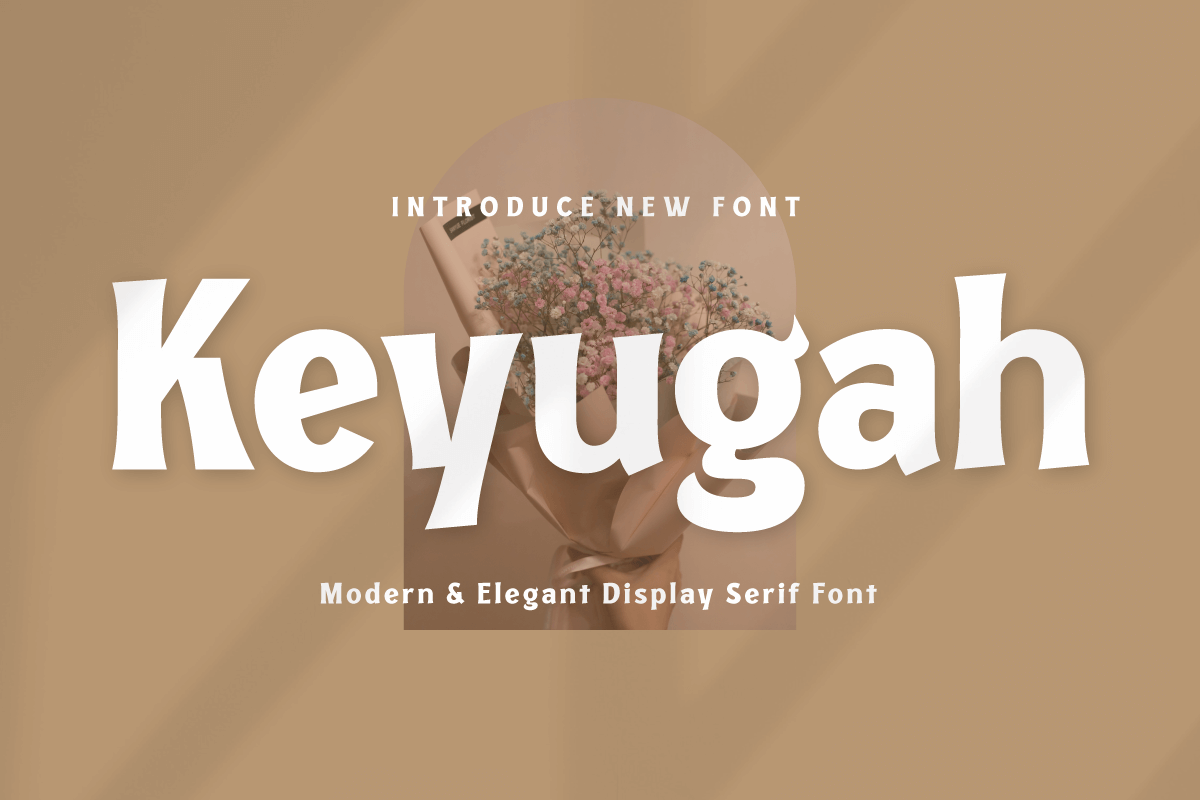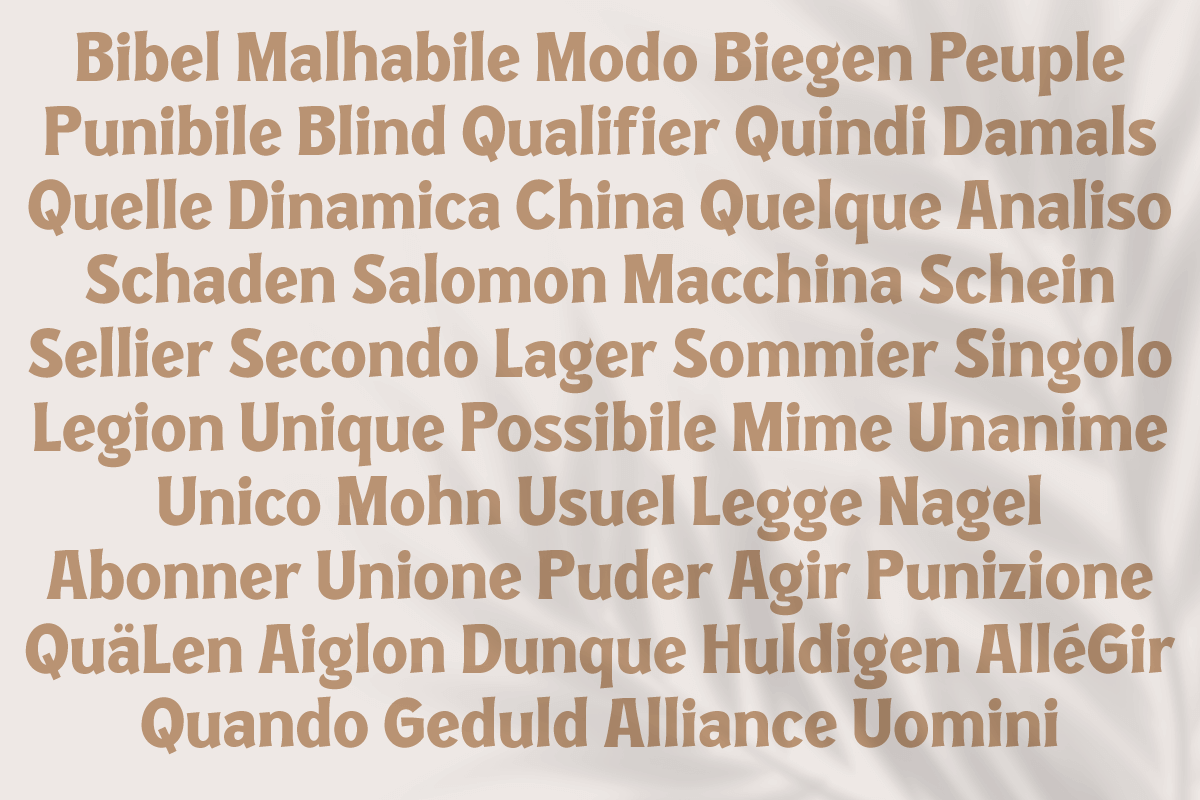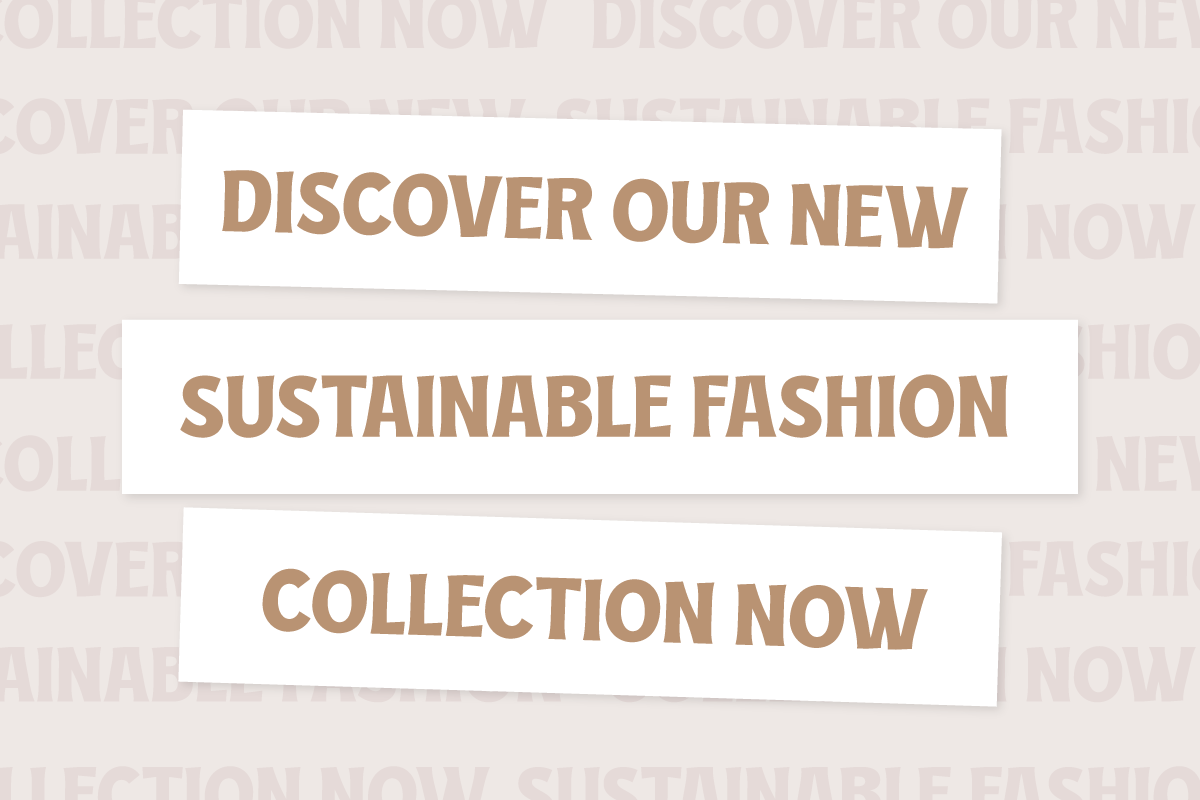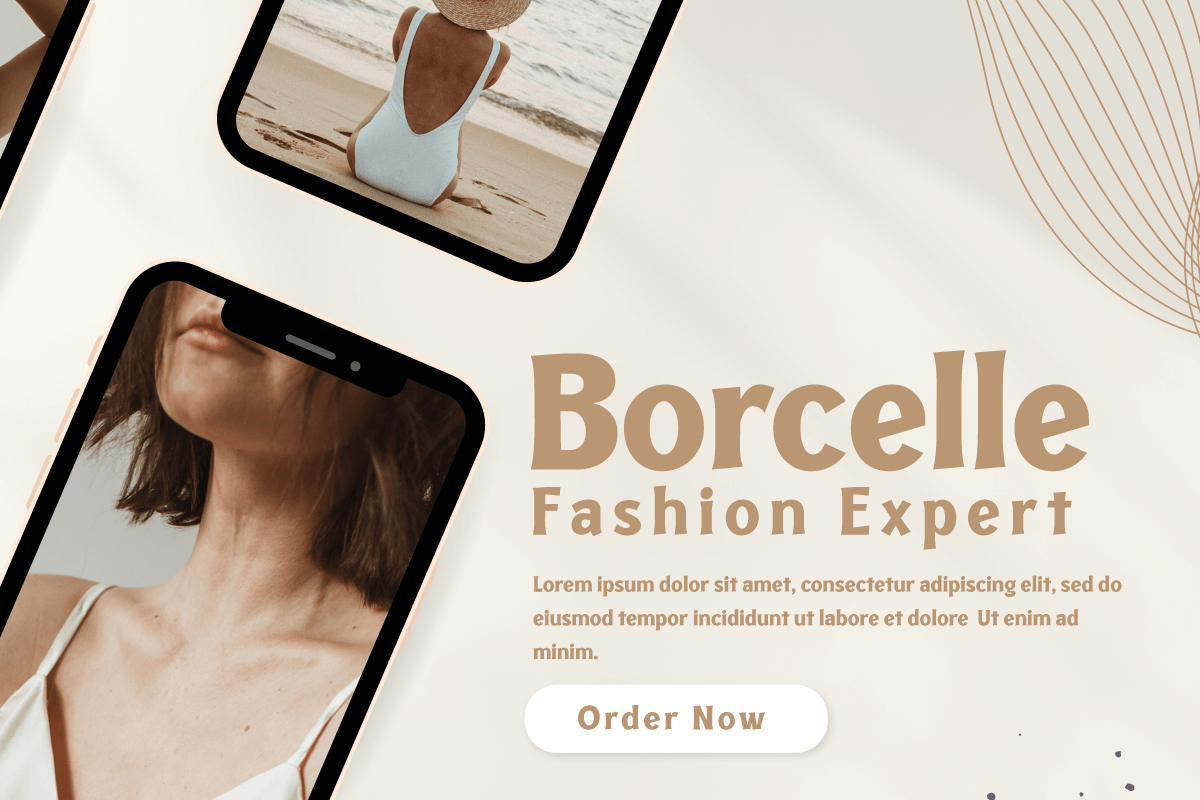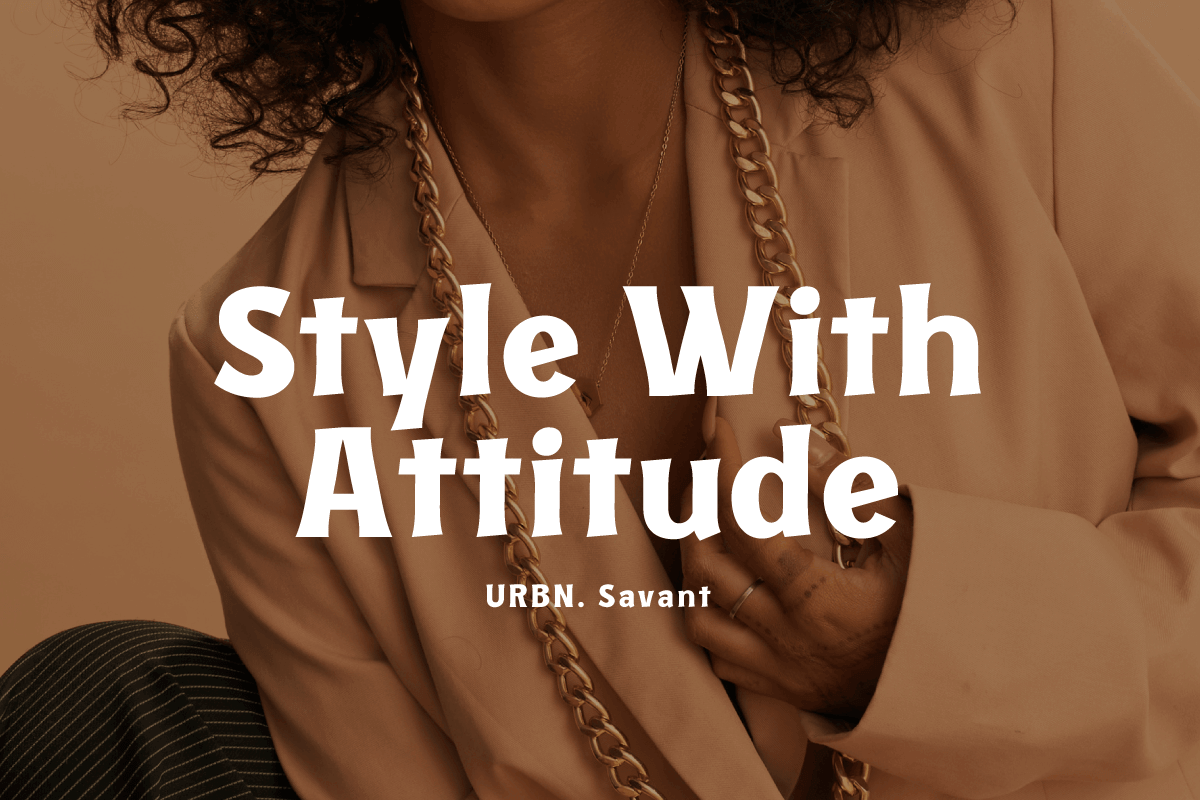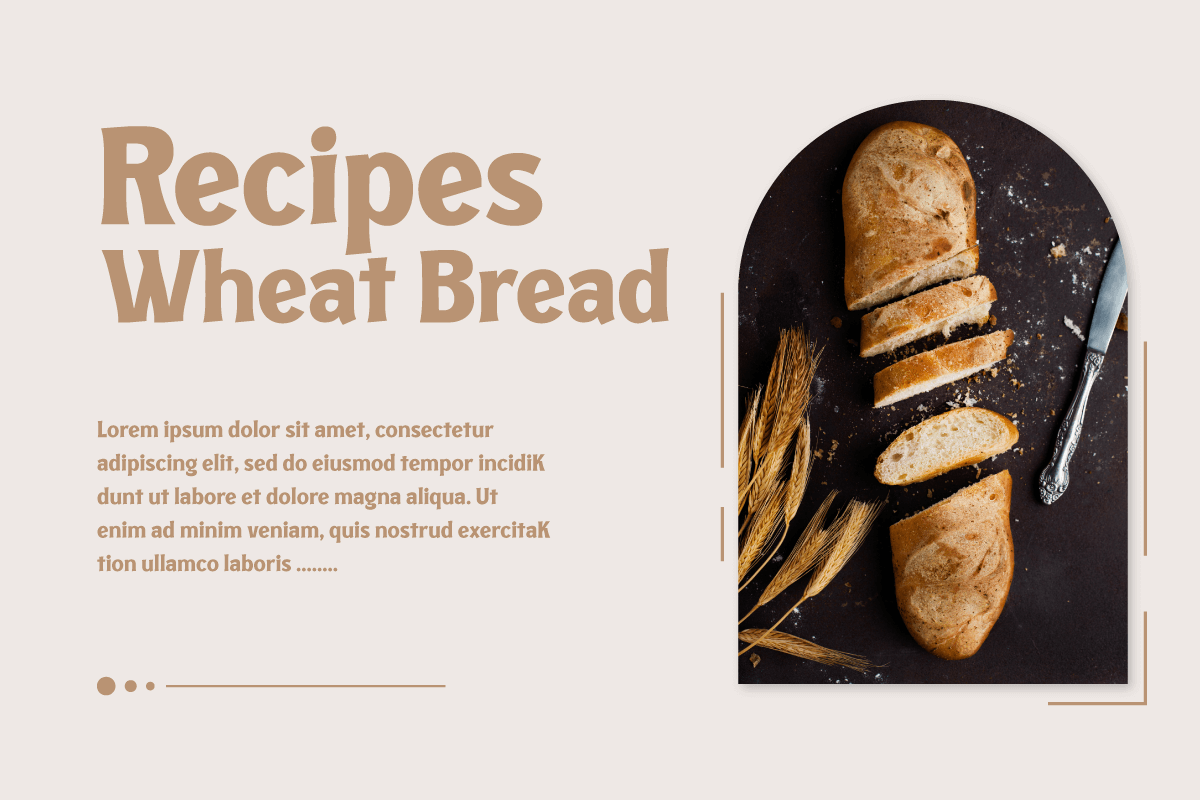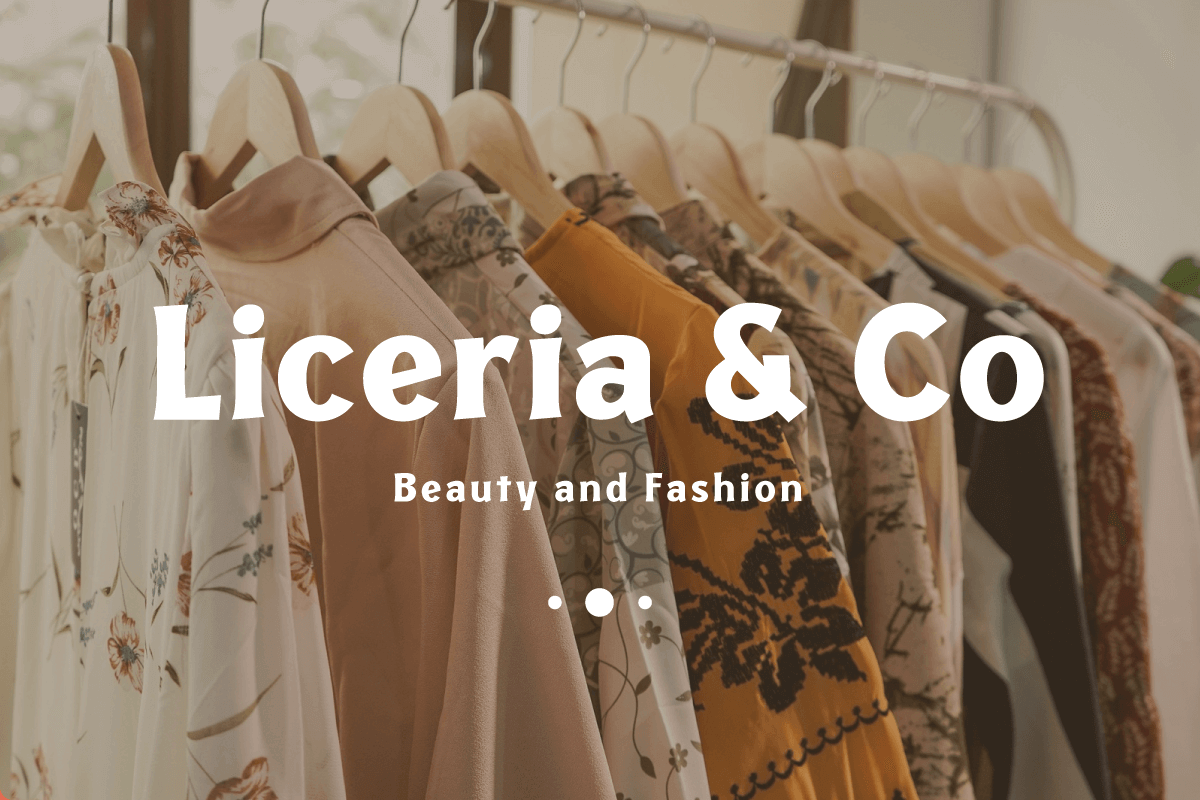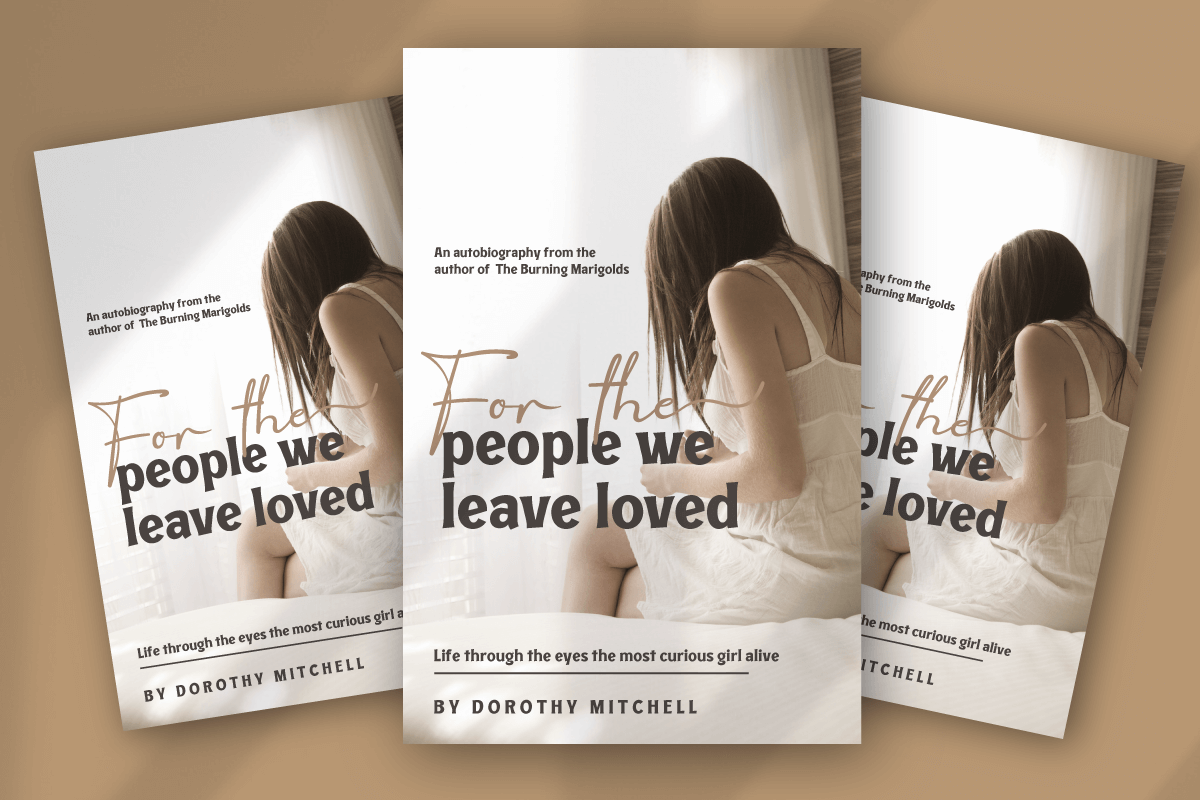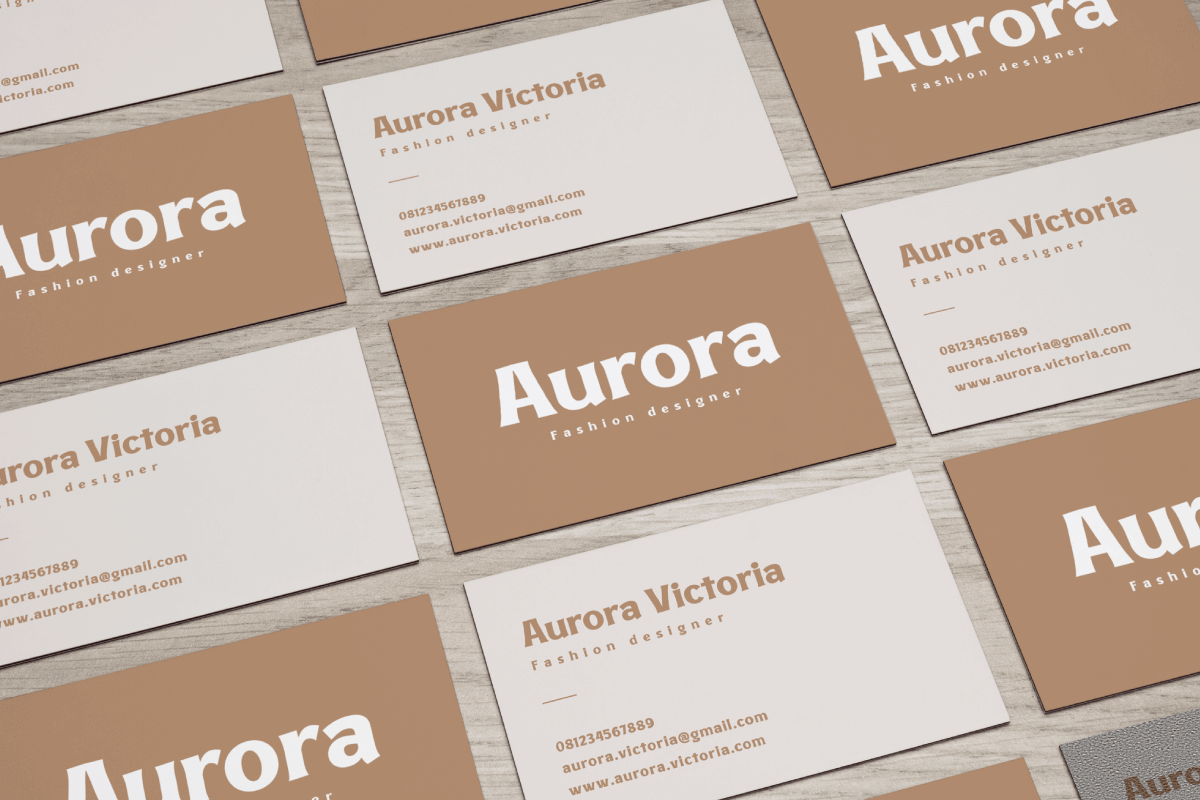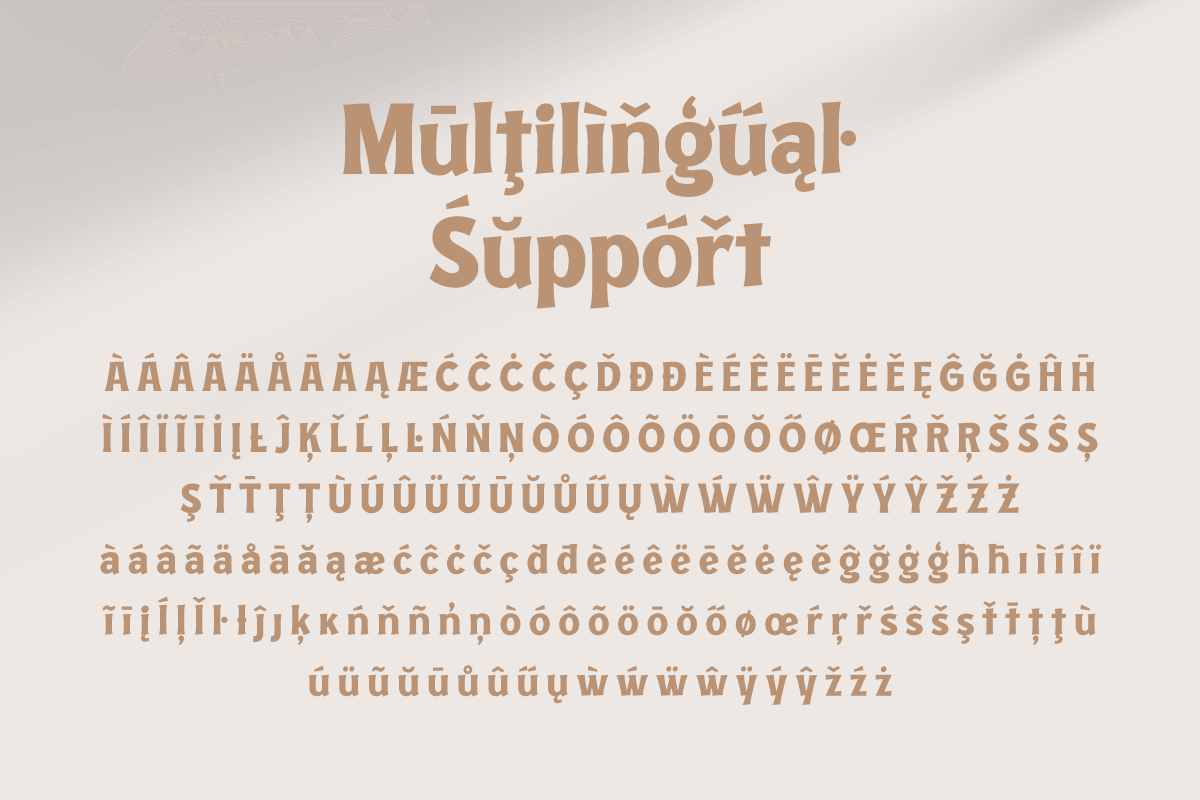
- Keyugah – Luxury Serif Font
Keyugah is a classic serif font that exudes elegance and sophistication. Its timeless design makes it perfect for any project that requires a touch of refinement, from wedding invitations to high-end branding materials.
With its clean lines and understated serifs, Keyugah is easy to read and works well in both print and digital media. Its versatility is further enhanced by its multilingual support, which allows you to use it in a wide variety of projects for a global audience.
Whether you’re creating a logo for a luxury brand, designing a book cover, or crafting an elegant website, Keyugah is a reliable choice that will elevate your project to the next level.